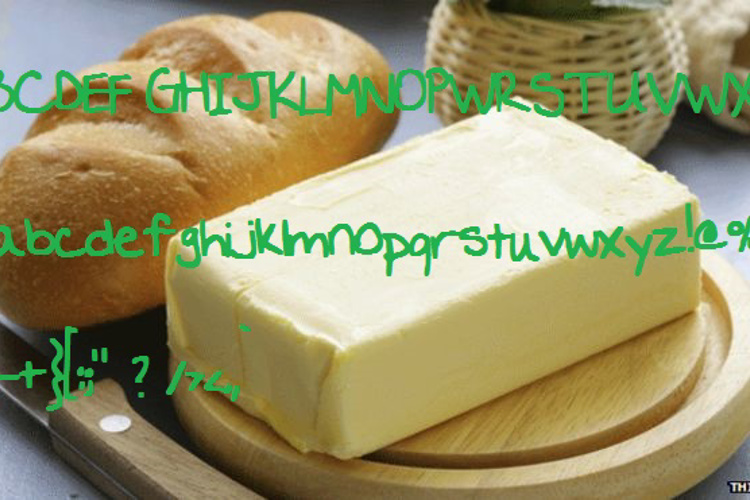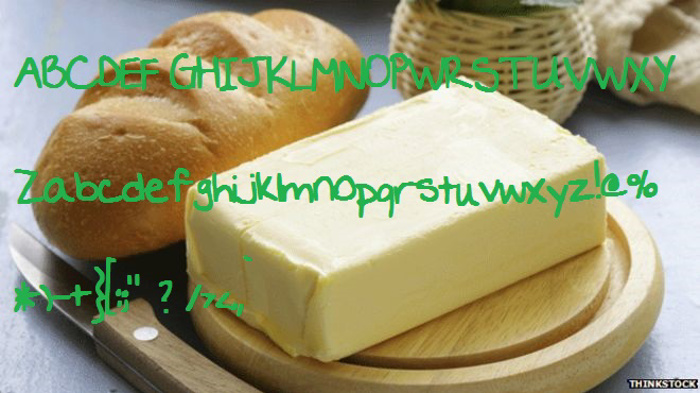
Light_Bread__Apple_Butter Font
Light Bread & Apple Butter is a hand-drawn font perfect for personal letters. Light Bread & Apple Butter is free for private and commercial uses.